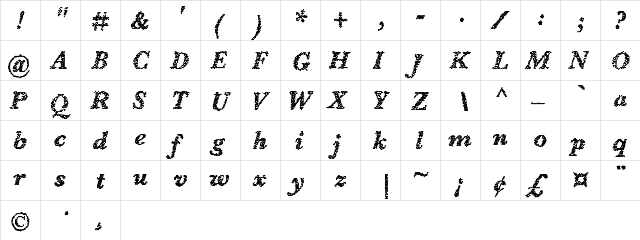
BlearyDays Medium
Design Context for BlearyDays Typeface
BlearyDays takes a measured approach to typography — its balanced proportions and neutral character make it a reliable workhorse for both digital and print work.